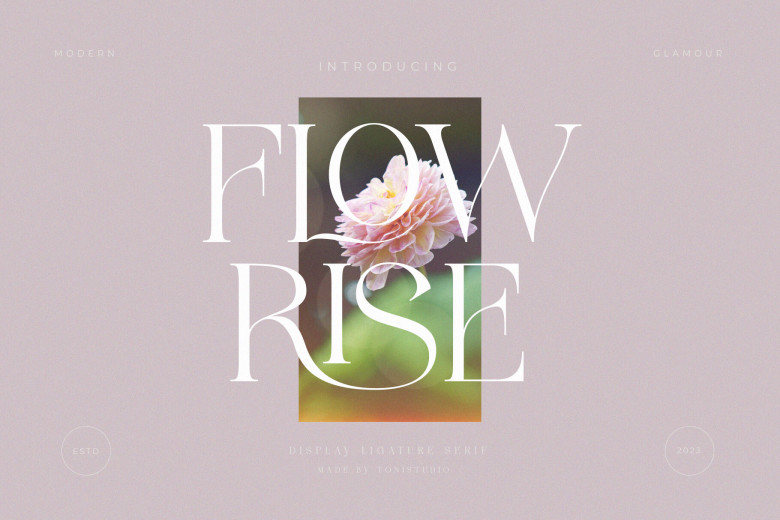
Flowrise Font
“FLOWRISE” is an elegant condensate serif font featuring graceful curves for a graceful style and appearance, perfect for creating beautiful logotypes, magazines, titles branding projects and much more. This font could also provide the ideal solution for completing collections with various bindings or projects with multiple collections or bindings.
Flowrise Serif Font